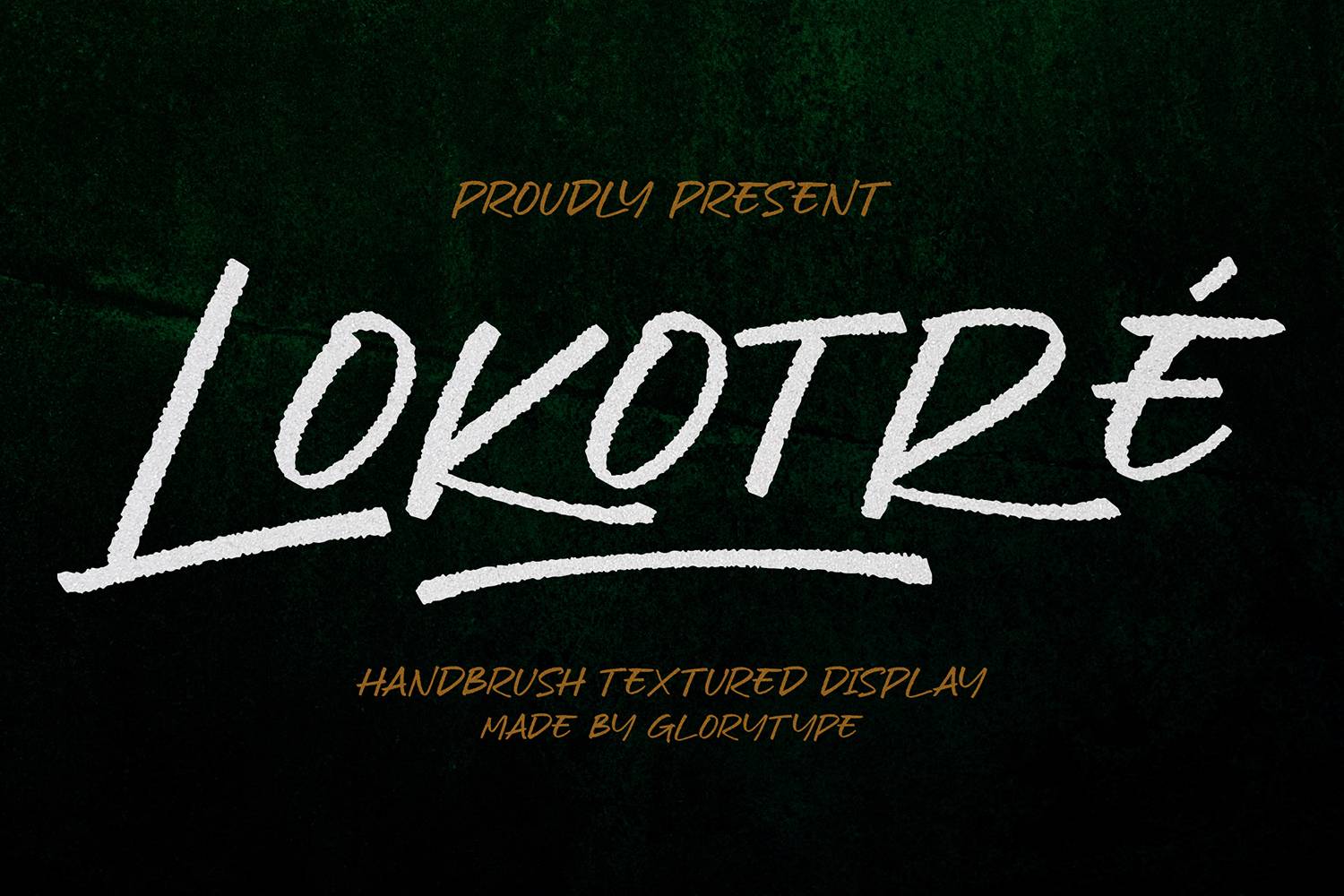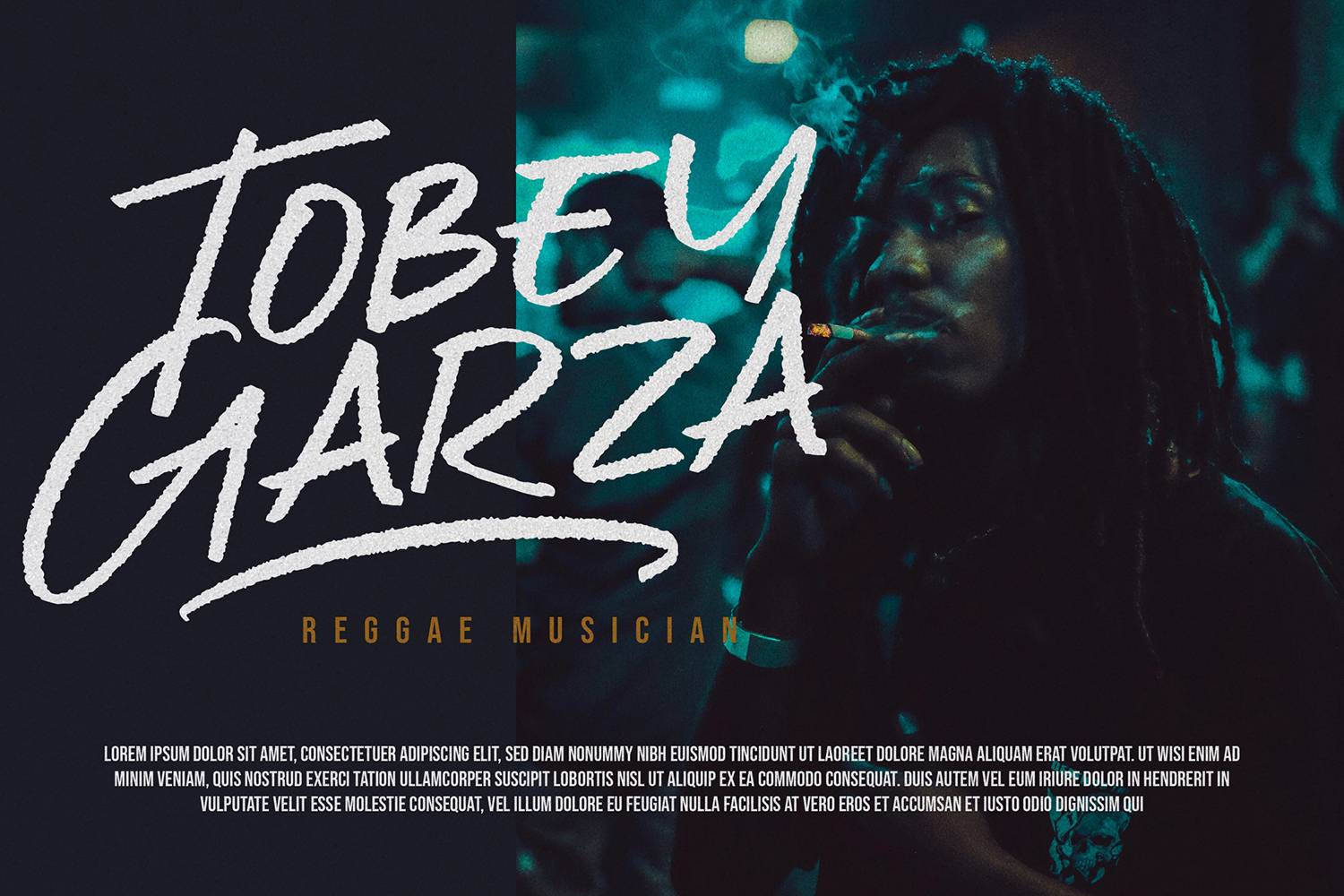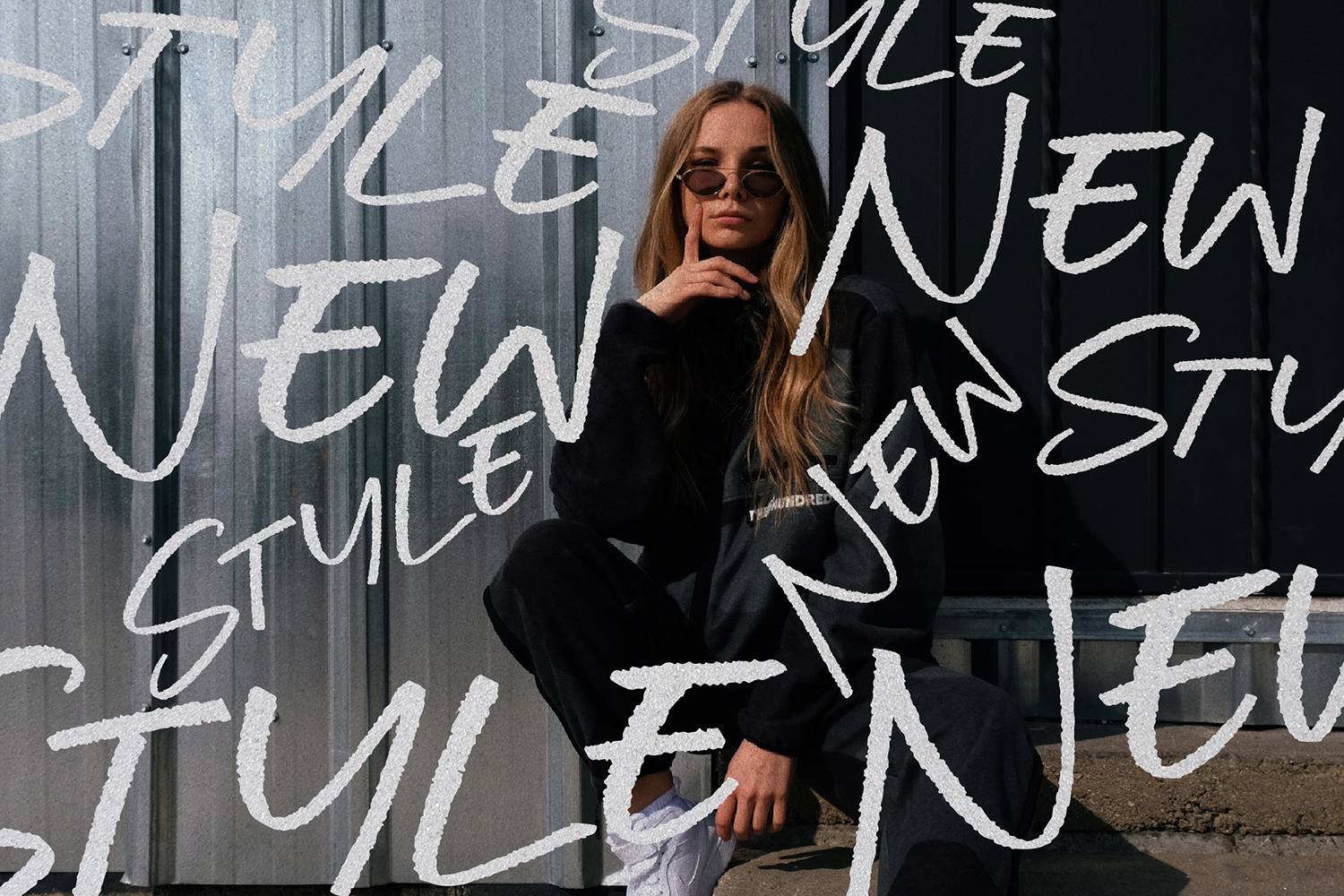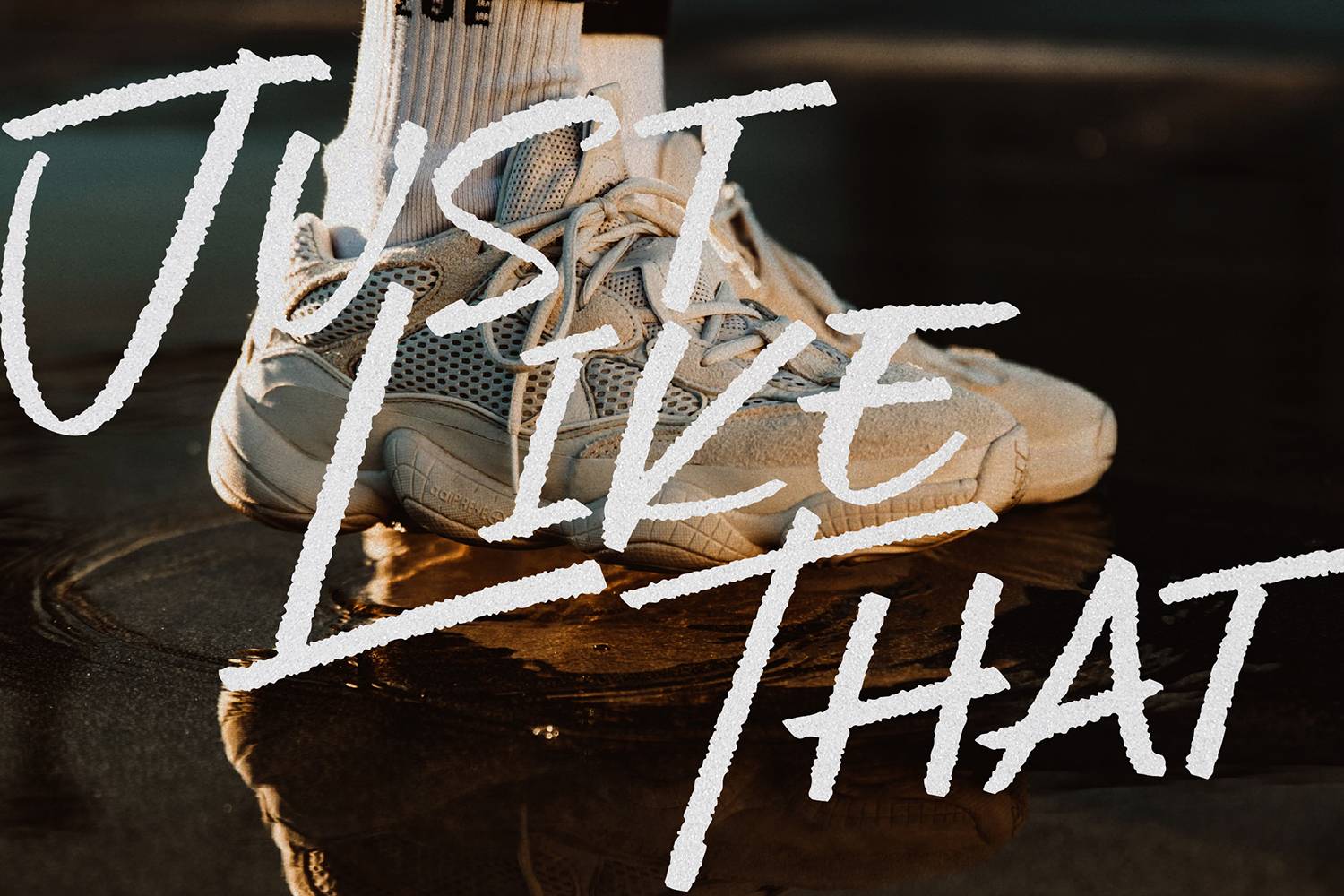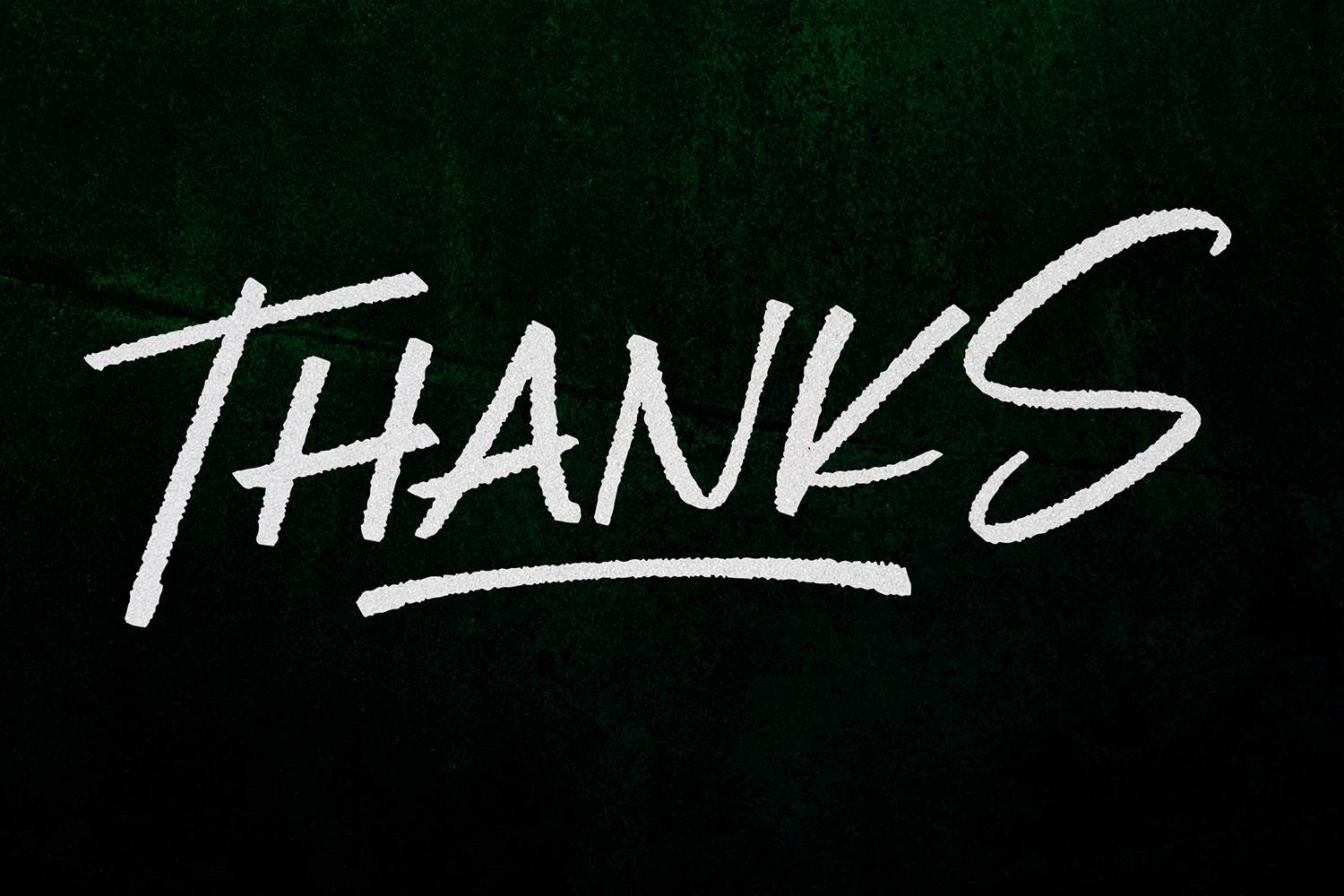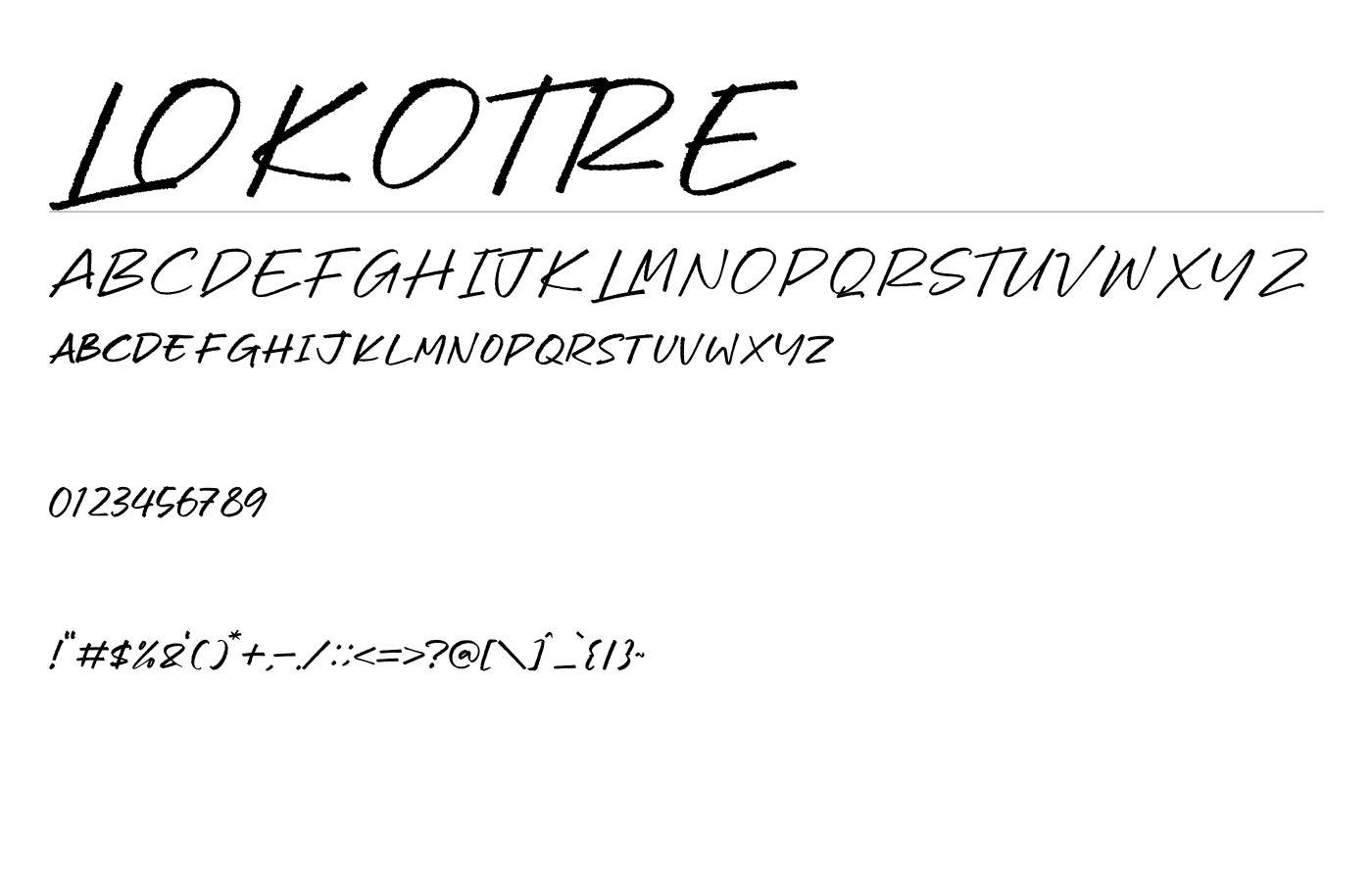
Lokotre is a casual, handwritten sans serif font with a light weight and a narrow, slightly condensed width. Its energetic, slightly slanted strokes and informal style give it a friendly, spontaneous feel, making it ideal for creative, playful branding, personal projects, or editorial accents where a human touch is desired. This font works well in headlines, logos, and any design seeking a dynamic, approachable personality.
Lokotre Font
About Lokotre Font